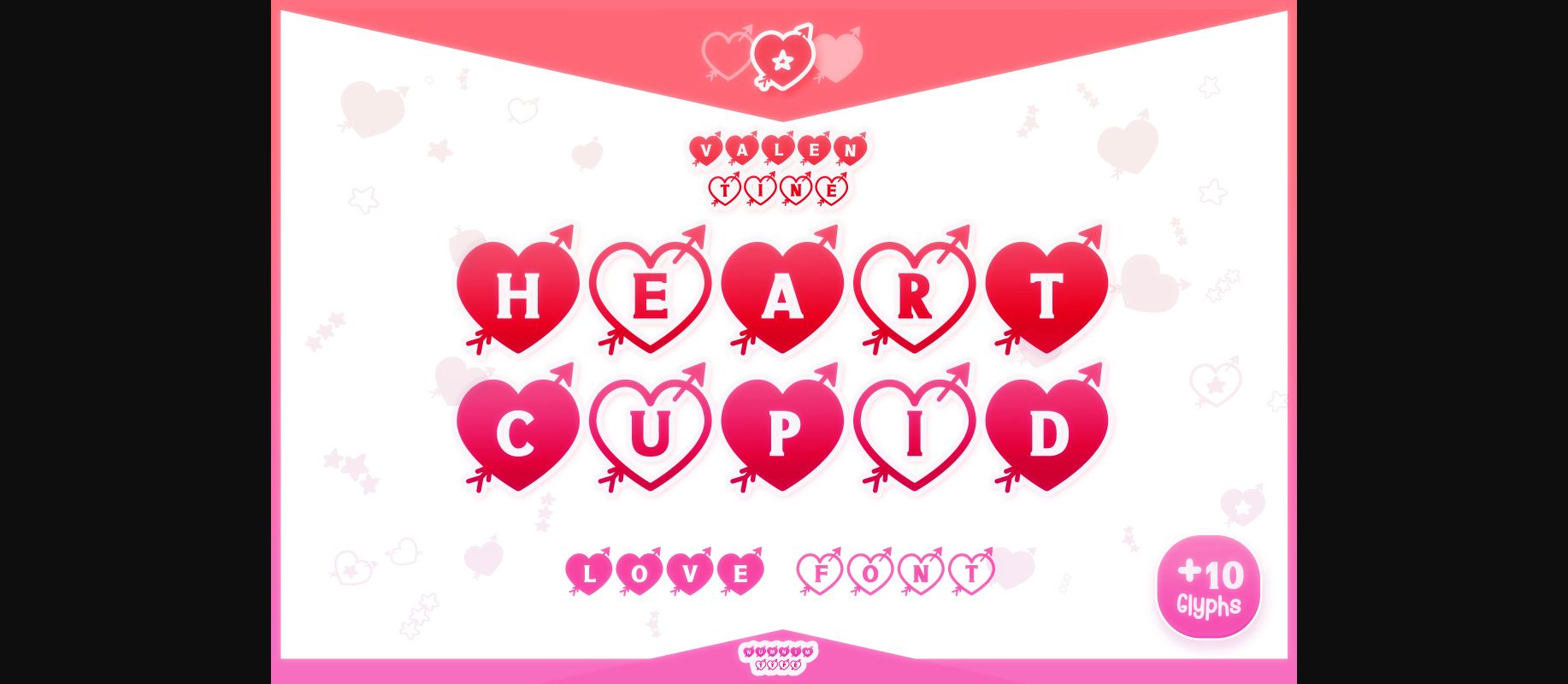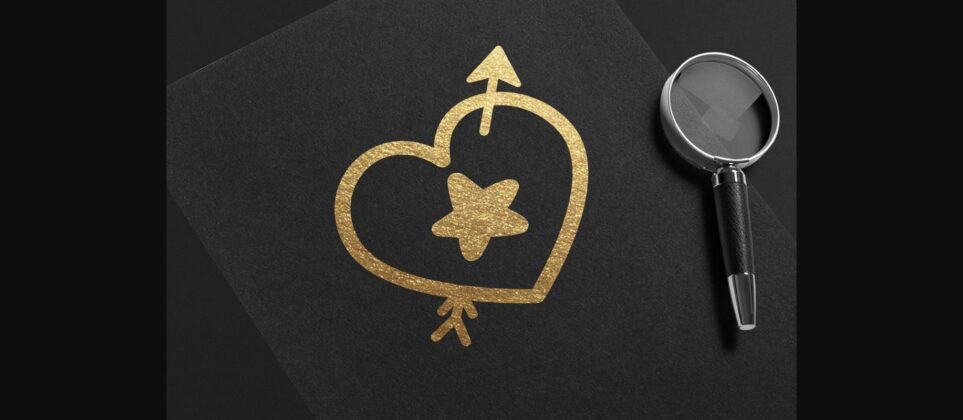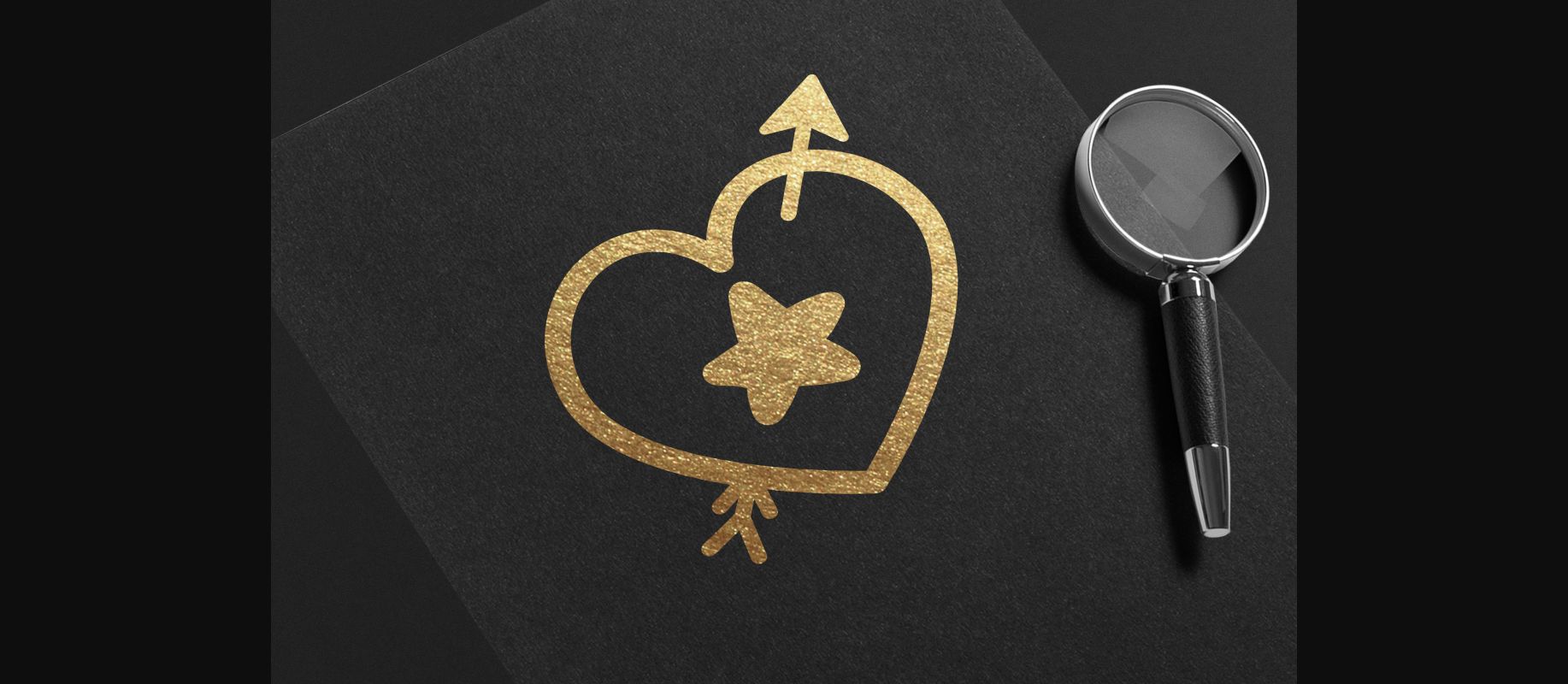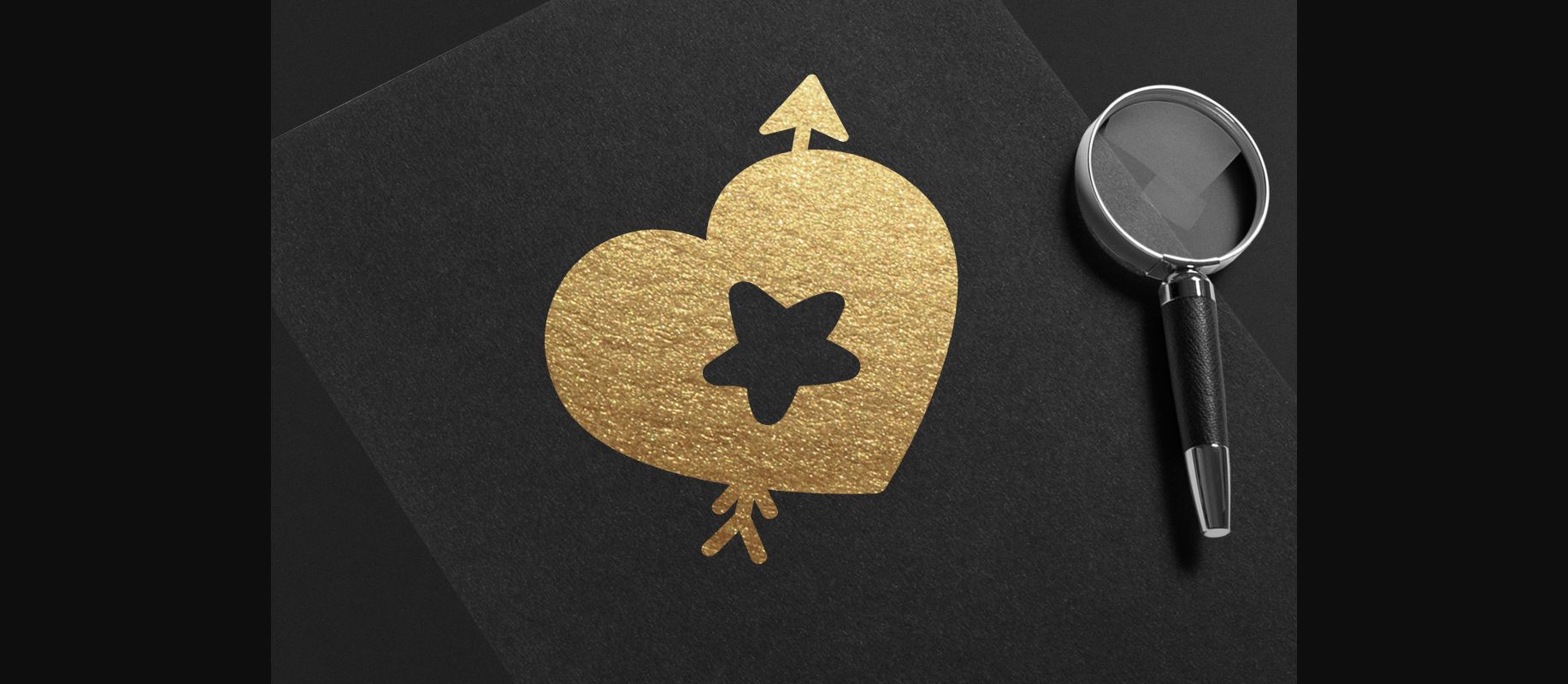
About Heart Cupid Font
Heart Cupid is a cool and uniquely designed decorative font. Each character is fun and playful, perfect for adding a bold accent to your designs! This font is suitable for Valentine’s Day and love-related projects. You can see that it includes letters shaped as heart balloons which you can use to create stickers, mugs, t-shirts, ornaments, Valentine’s cards, event invitations, and many more. Add this cute decorative font to any of your creative projects, and it will capture everyone’s attention!